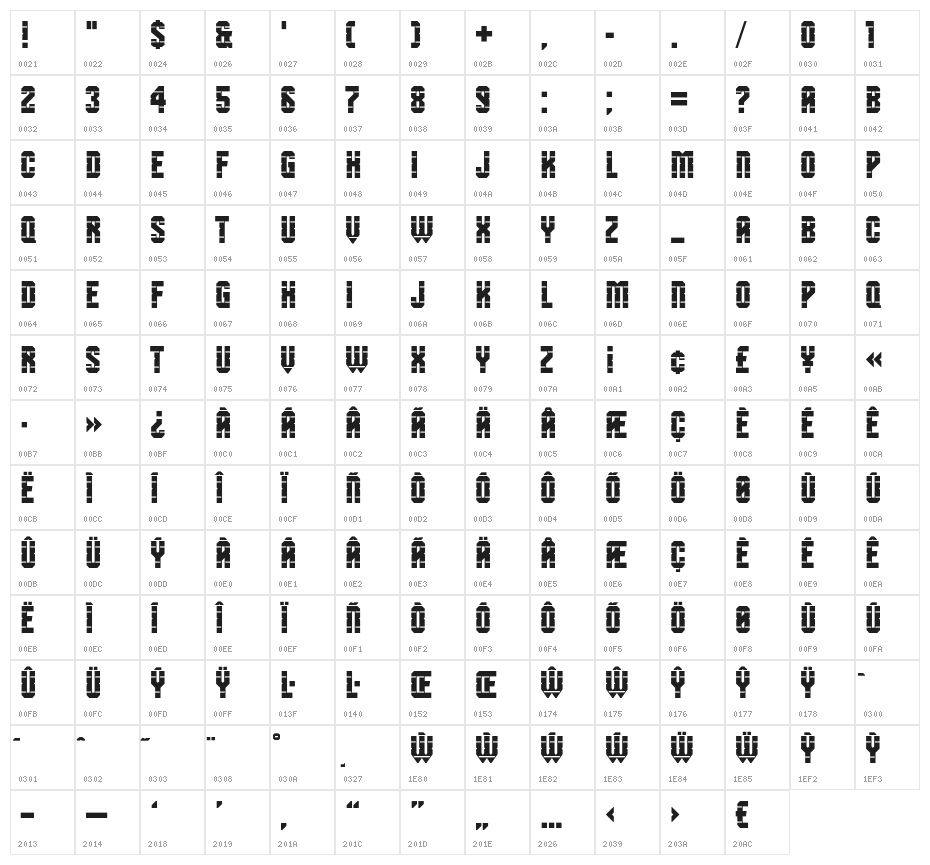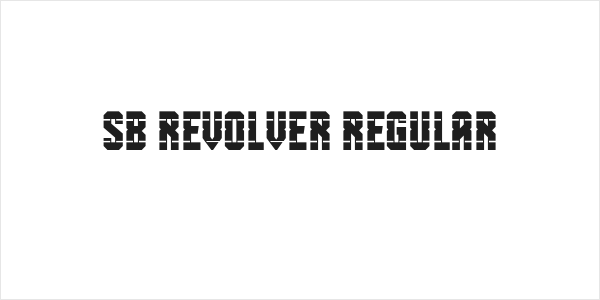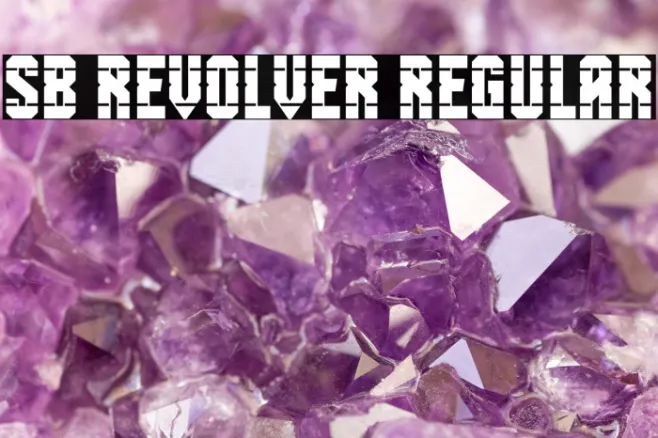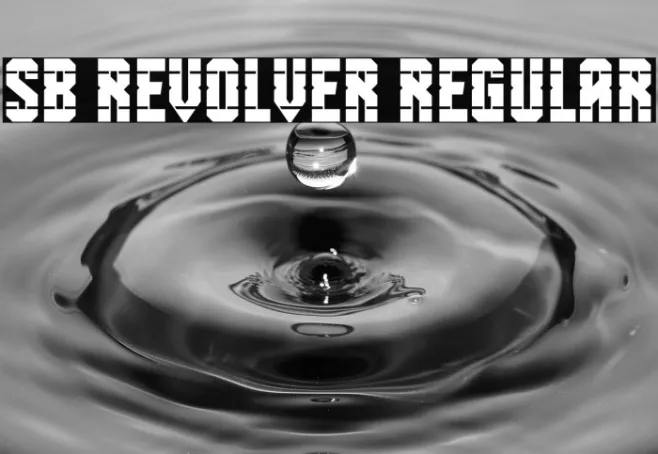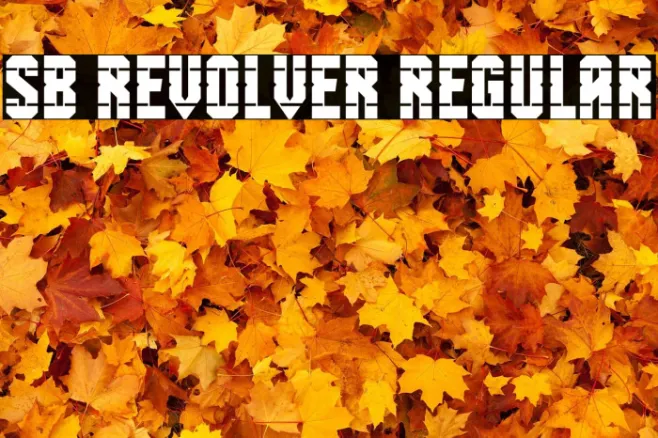
SB Revolver Regular Font
SB Revolver Regular Description
This font features a bold, geometric design with a stencil-like appearance. The characters are constructed with thick, blocky strokes that create a sense of strength and modernity. The angular cuts and sharp edges give it a distinct industrial feel, making it stand out in any design. The uppercase and lowercase letters maintain a consistent style, while the numerals and special characters complement the overall aesthetic. This font's unique structure and bold presence make it ideal for attention-grabbing designs.
| Proposed Projects | Ideal for posters, branding, packaging, and any design requiring a strong, modern look. |